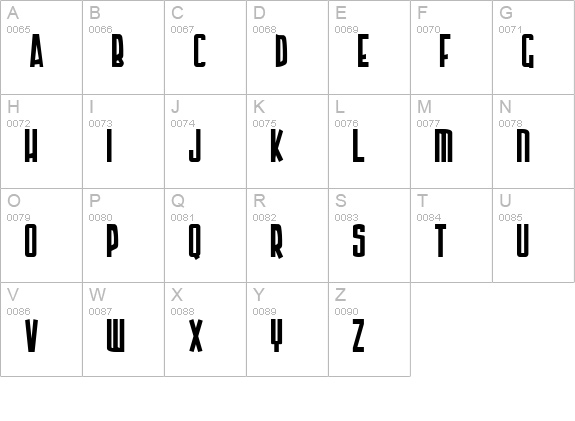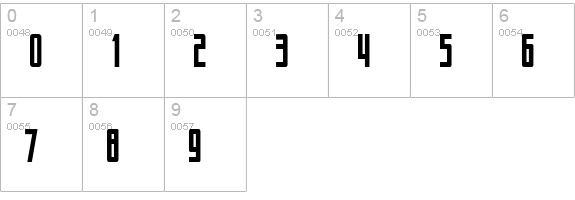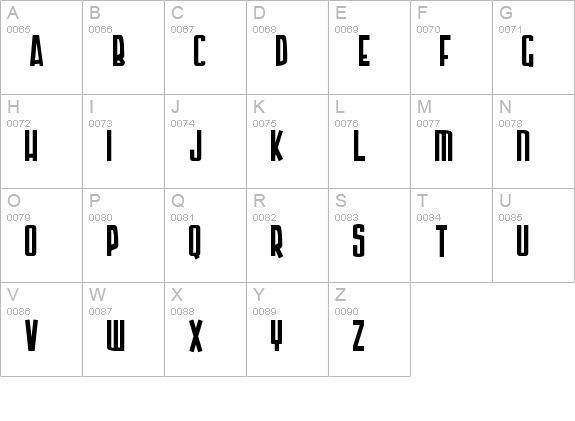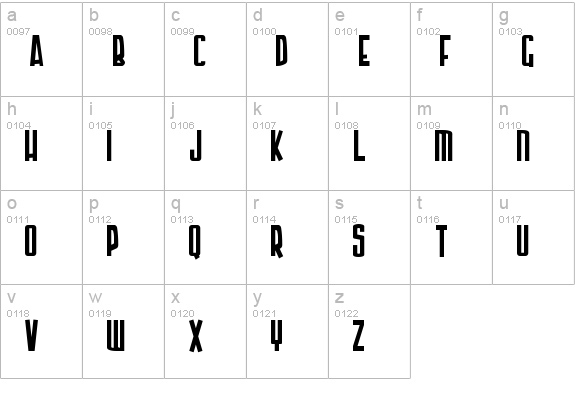
Armor Piercing Font Details
Armor Piercing font is a bold and impactful typeface that exudes strength and power. Its sharp edges and sleek design make it perfect for projects that require a modern and dynamic touch. Whether you're creating a poster, logo, or website, Armor Piercing font will make your text stand out with its unique look. Best of all, Armor Piercing font is available for free download at FontsMarket.com. This means you can easily add this striking font to your collection without any cost. Don't miss out on the opportunity to enhance your designs with the bold and commanding presence of Armor Piercing font. Download it today and start making a statement with your typography.